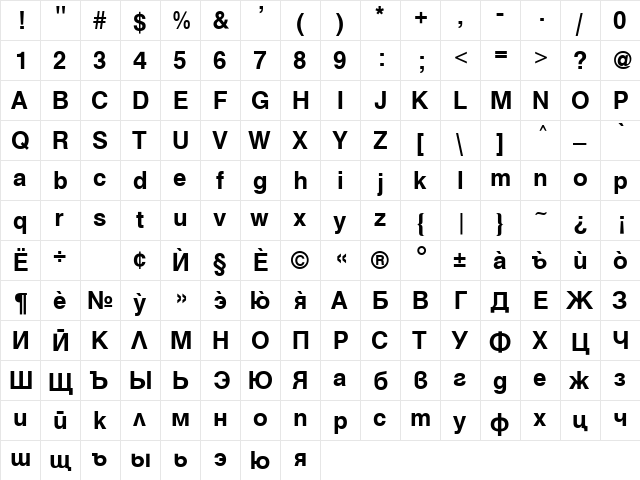
Helen Bold
Design Context for Helen Typeface
Helen offers clean, dependable letterforms without strong stylistic allegiance, making it a practical choice for designers who need flexibility. The heavy weight commands attention and anchors typographic hierarchies.